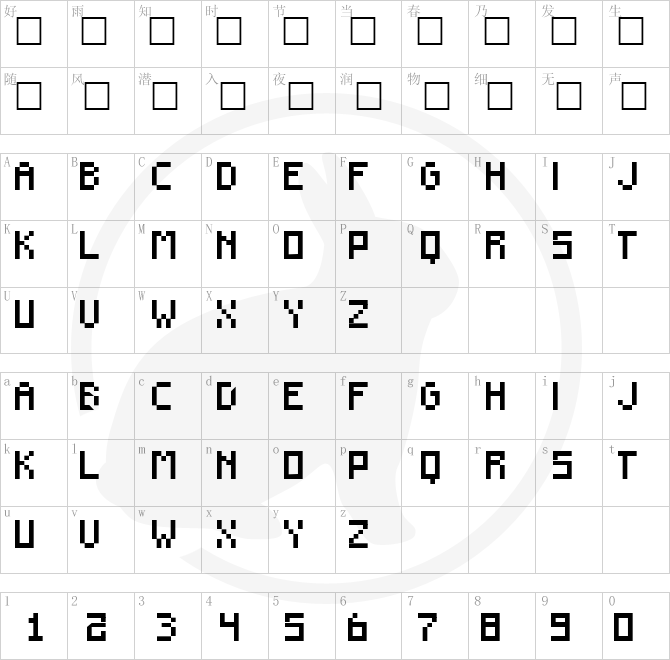
- Font Name:F910
F910.ttf is a very beautiful artistic font, F910.ttf is widely used in the design and printing of various books and pictures,F910.ttf has a strong visual impact,F910.ttf is a commonly used font in newspapers, magazines and books, and is used in posters, e-commerce Poster design, store design, logo design, font design and other fields.F910.